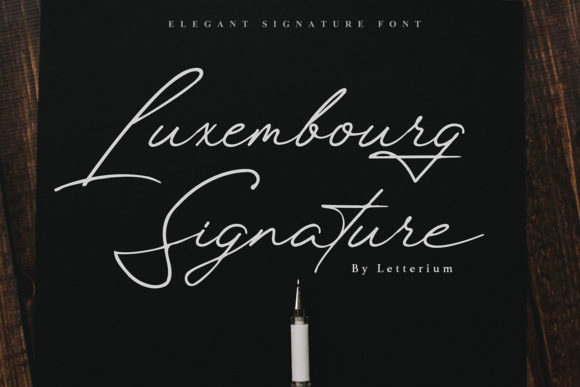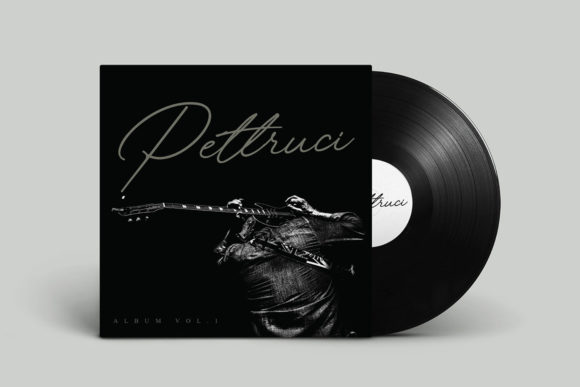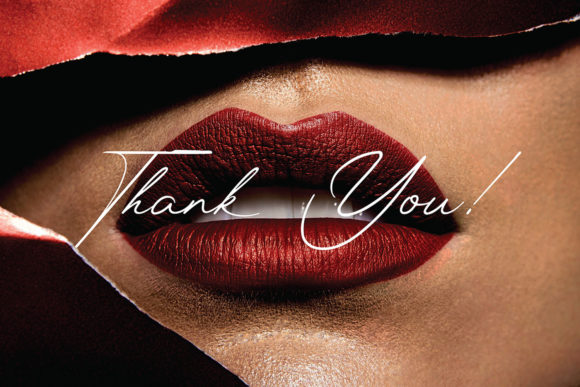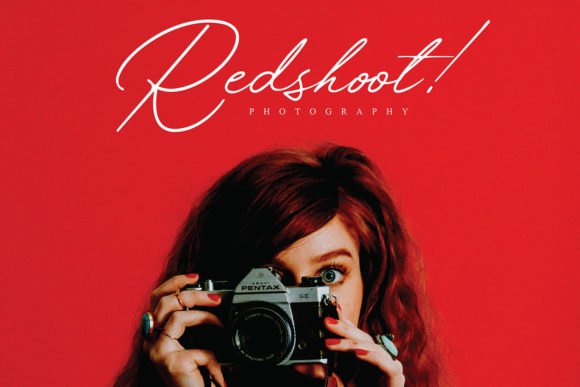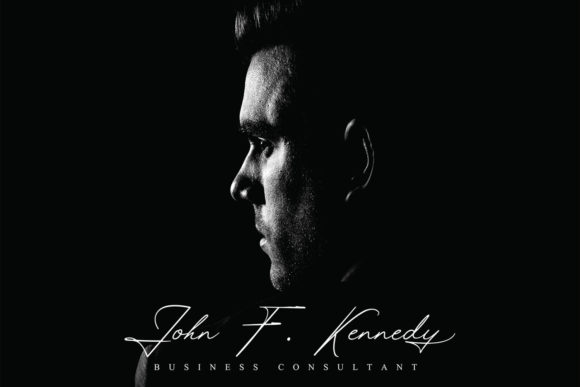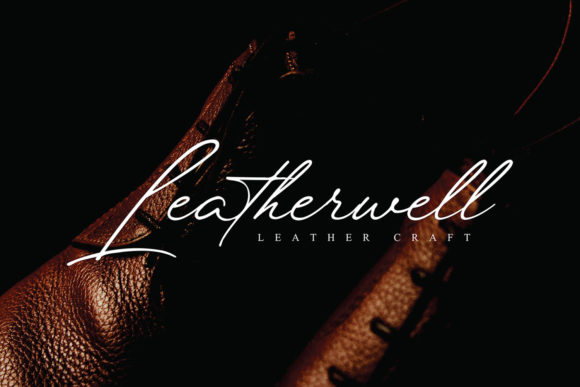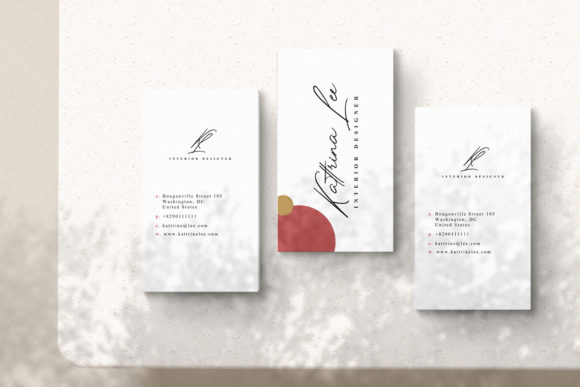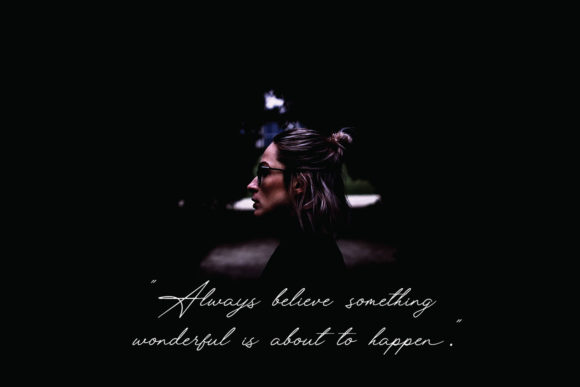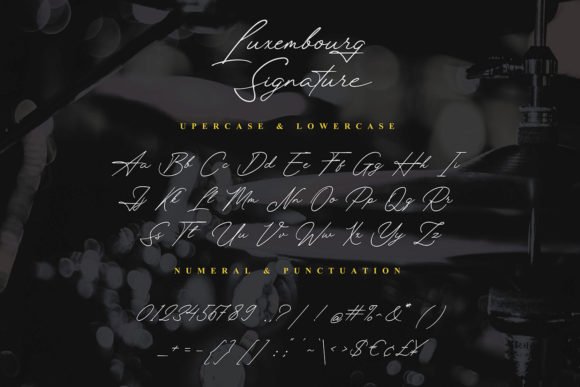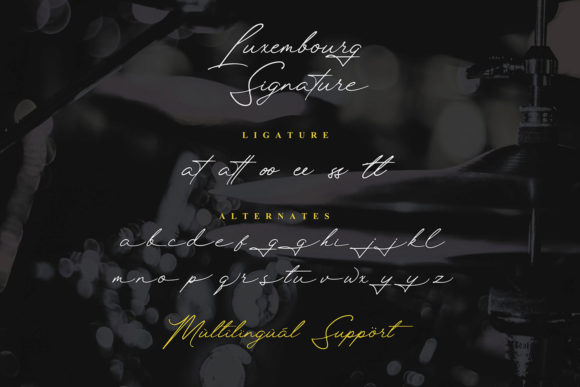
Luxembourg Signature Font
About Luxembourg Signature Font
Luxembourg Signature simplifies elegance into one truly outstanding handwritten font. It maintains its classy calligraphic influences while feeling contemporary and fresh. This versatility will appeal to a wide range of crafty ideas, from letterheads and titles, to stationery.